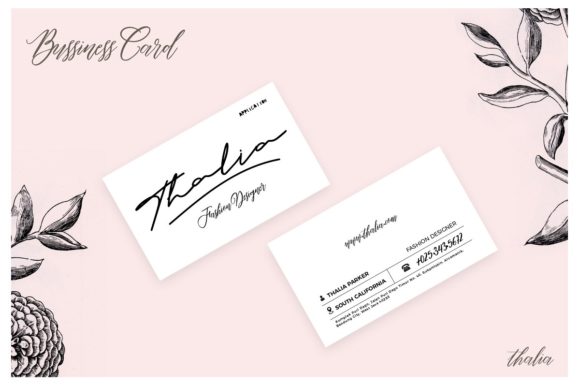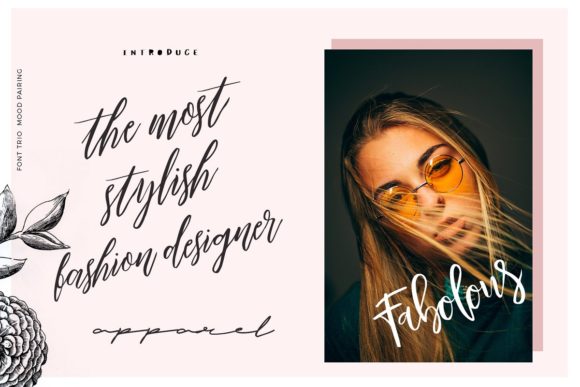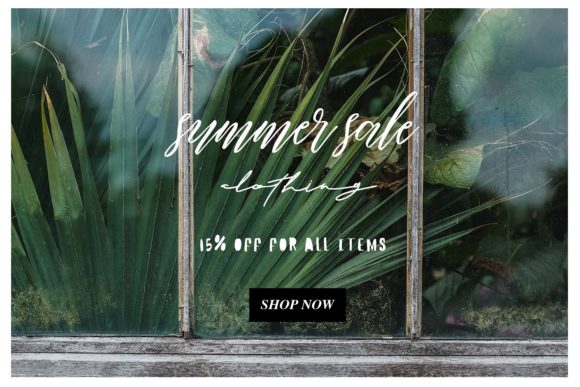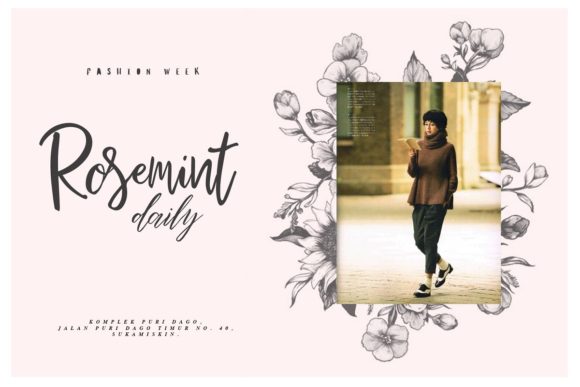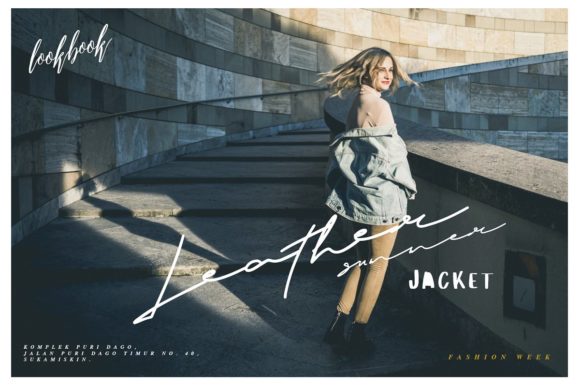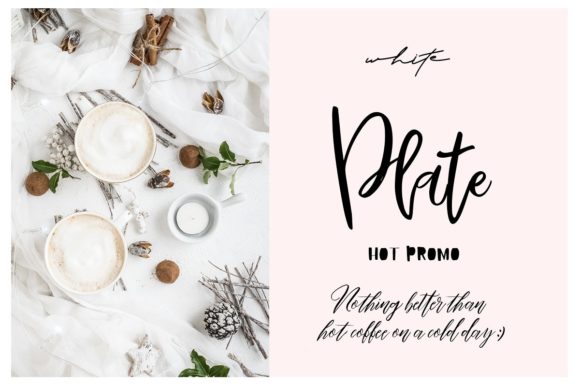
Introduction to Maldina Font
As designers, we’ve all been there – staring at a blank canvas, struggling to find the perfect font to bring our creative project to life. But what if I told you that the perfect font is just a click away? Introducing the lovely and modern Maldina Font, a design resource that’s about to become your new best friend.
Maldina Font is more than just a pretty face – it’s a versatile tool that comes with four different styles, ensuring that you’ll find the perfect fit for your next project. Whether you’re working on a logo, a brochure, or a social media graphic, Maldina Font is sure to elevate your design to the next level.
Key Features of Maldina Font
- High-quality font design, ideal for creative projects requiring a unique and elegant touch.
- Designed to be highly legible, making it perfect for body text, headings, and titles in creative projects.
Honest Review: Maldina Font
I recently had the chance to work with the Maldina Font for a creative project and I must say it was a great experience. This font is a great addition to any design resource and can add a touch of elegance to any text.
- ✨ High quality design that is both modern and sophisticated
- ✨ Great for titles and headings due to its bold and striking appearance
- ✨ Can be used on a transparent background, giving it a beautiful and airy feel
- ⚠️ Not ideal for large blocks of text, as it can become overwhelming
- ⚠️ May not be the best choice for websites with a lot of text content
Overall, I was very impressed with the Maldina Font. Its unique design and high quality make it a great addition to any design project. While it may not be suitable for every situation, it’s definitely a valuable resource to have in your toolkit.
Tips for Getting the Most Out of Maldina Font
Some tips for getting the most out of Maldina Font include using it in combination with other design elements to create a cohesive look, experimenting with different font sizes and styles to add visual interest, and taking advantage of the font’s transparent background to create overlays and other design effects.
Common Use Cases for Maldina Font
Maldina Font is commonly used in a variety of creative projects, including presentations, documents, and websites. Its high-quality design and transparent background make it an ideal choice for designers and creatives looking to add a professional touch to their work.
What makes the Maldina Font a high-quality design resource?
The Maldina Font is designed with precision and attention to detail, resulting in a high-quality design resource that is suitable for a wide range of creative projects. Its clean and elegant design, combined with its high-resolution glyphs, make it an excellent choice for designers who require a professional-looking font with a transparent background.